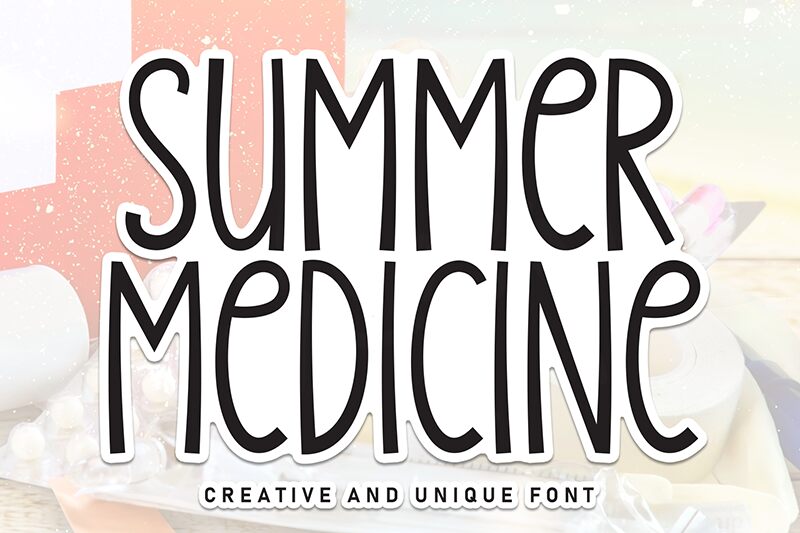
Summer Medicine
Summer Medicine font is a free brush font by Scratchones with a condensed and modern style. Its whimsical and artistic design features decorative forms with unique textures which provide the latter. While it is not one of those natural script handwritten fonts, it does seem to have the charm of them.
Use Summer Medicine in signature designs, product packaging, magazine covers and inside articles, social media banners, book covers, invitation cards, logos and branding projects delay more. Whatever the project you are working on becomes instantly visually more appealing as this artistic typeface does its magic.